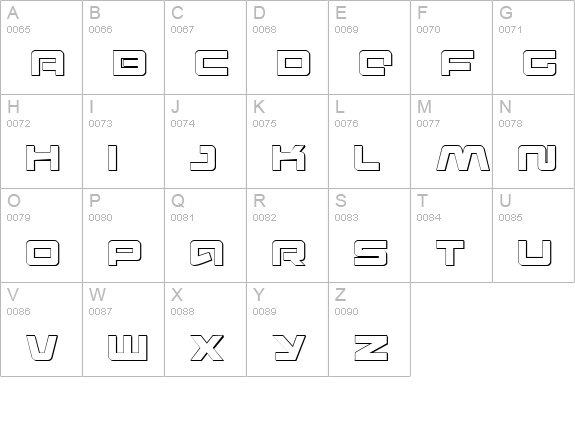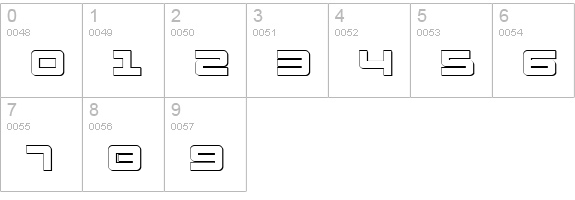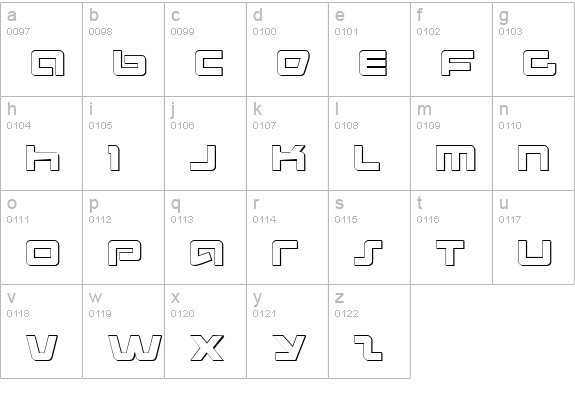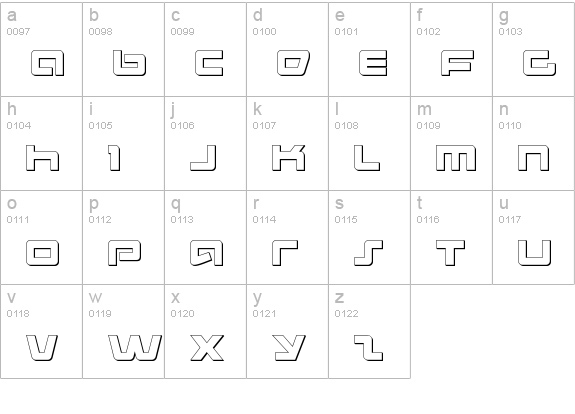
The Pulse Rifle 3D font is a futuristic and dynamic typeface that brings a cutting-edge vibe to any design project. Its sleek and modern design features sharp angles and 3D effects that give it a high-tech feel. This font is perfect for creating eye-catching headlines, posters, and digital art that demand attention. What's even better is that Pulse Rifle 3D font is available for free download at FontsMarket.com. This means you can easily access this impressive font and incorporate it into your creative works without any cost. Don't miss out on the opportunity to elevate your designs with the striking Pulse Rifle 3D font - get it now and make your projects stand out!